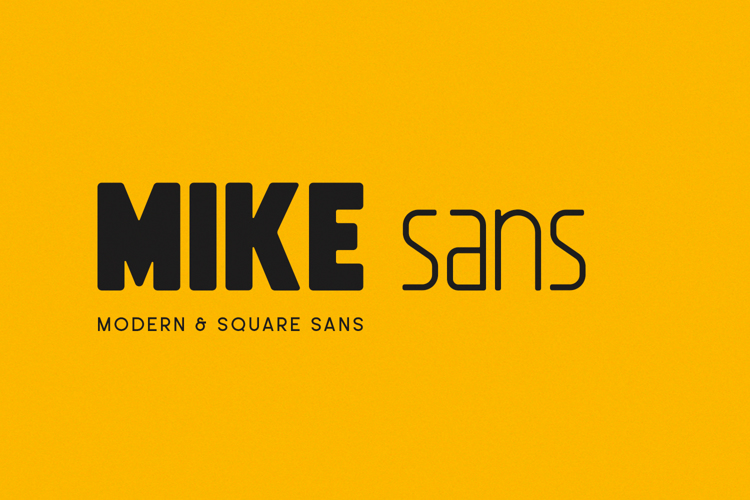
Mike Sans Font
About Mike Sans Font
Mike Sans is a modern sans serif with a square style. It comes in 8 weights, clean and modern glyphs, thereby creating more variability. Weights: Thin, ExtraLight, Light, Book, Regular, Bold, ExtraBold, Heavy
Good work, I love "Q" and "&" gliph 😉